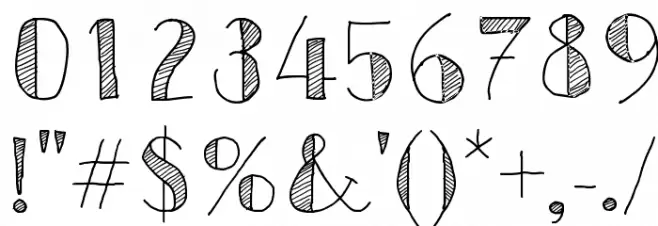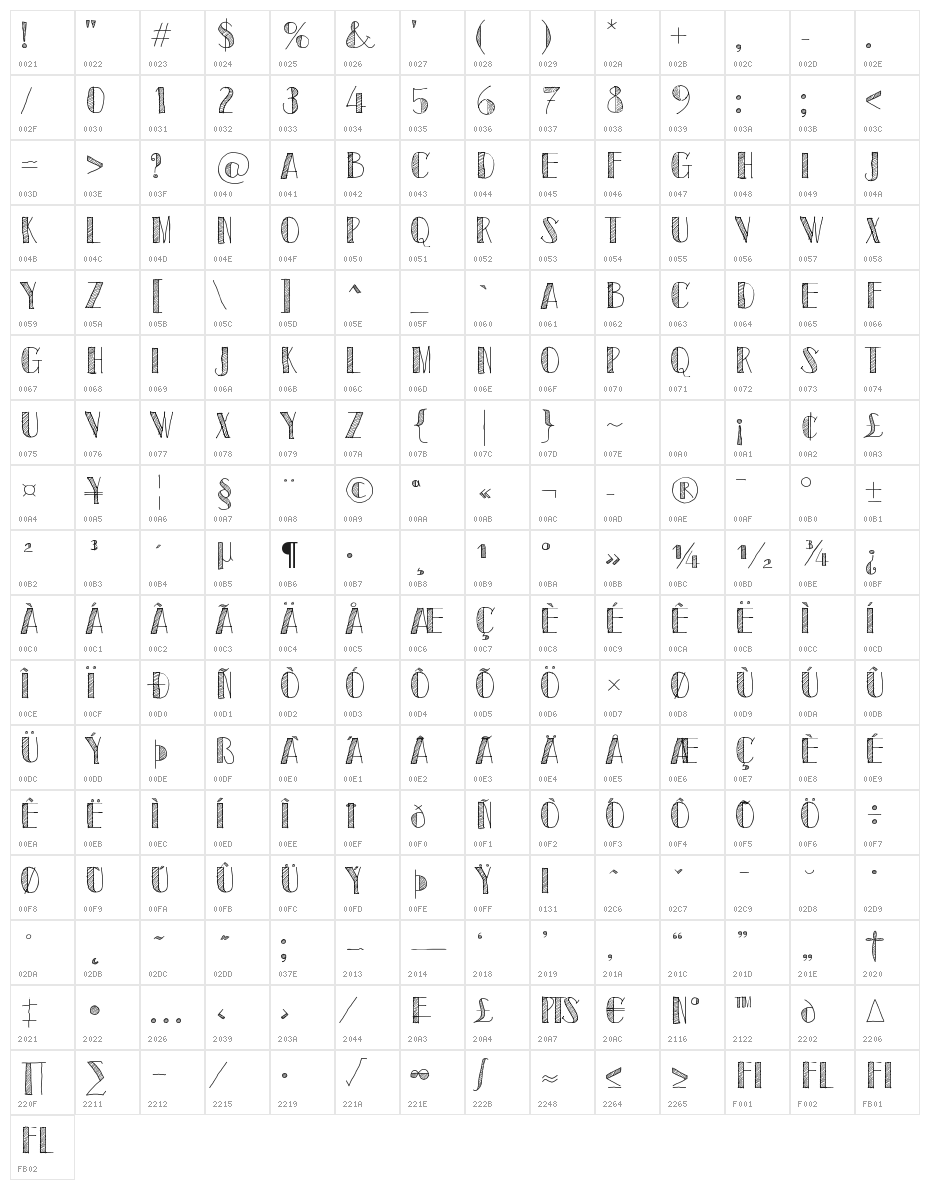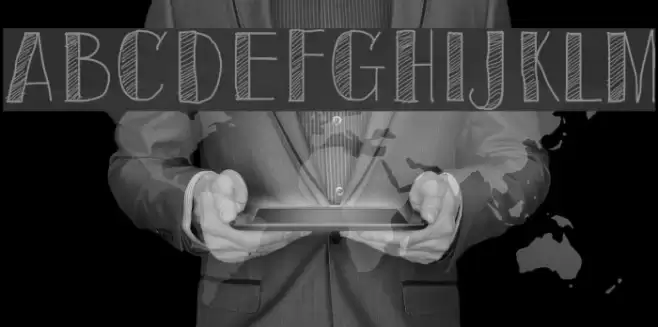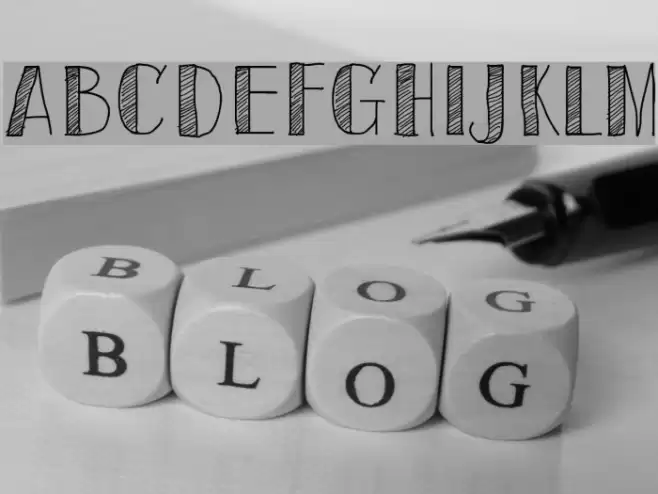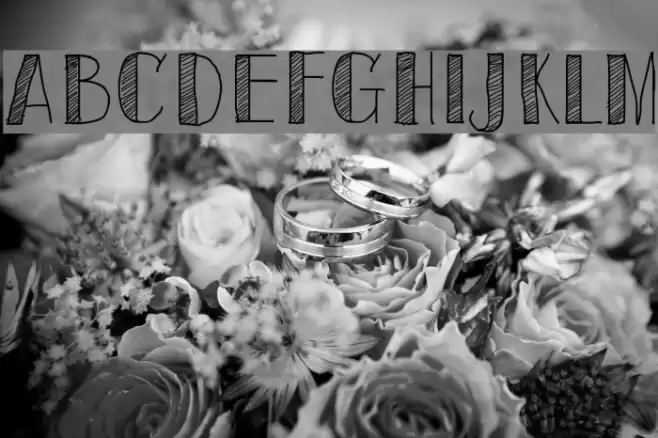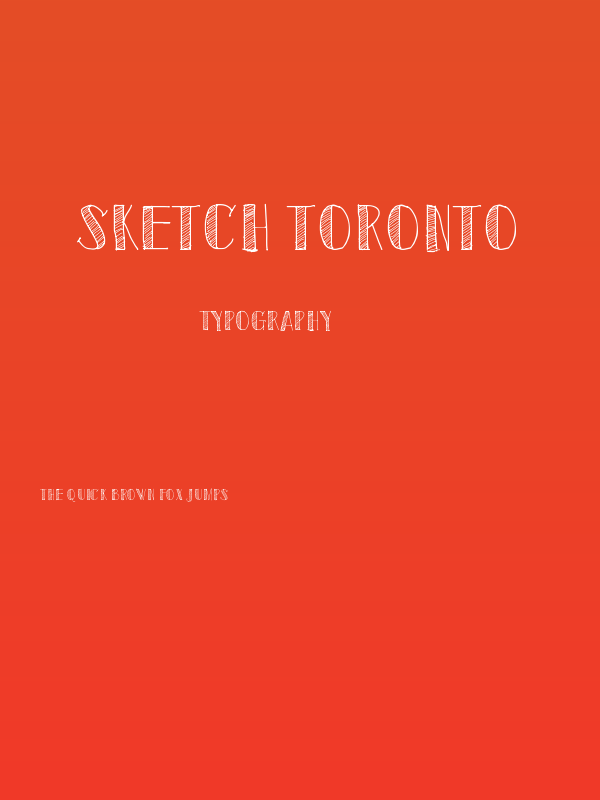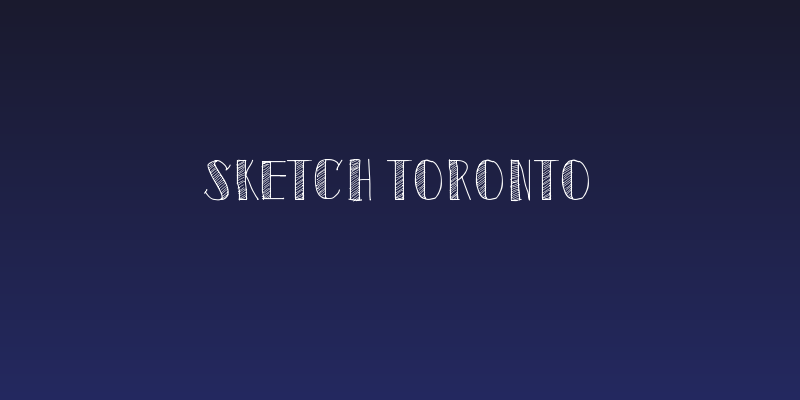
Sketch Toronto Font
Sketch Toronto Description
This font features a playful, hand-drawn style with a sketch-like appearance. Each character is outlined with a consistent stroke and filled with diagonal hatching, giving it a textured, artistic feel. The uppercase and lowercase letters maintain a uniform height, while the numbers and special characters follow the same design principles. The font's whimsical nature makes it ideal for creative projects, offering a unique blend of informality and charm. The characters are slightly condensed, with a moderate contrast between the thick and thin strokes, enhancing its visual appeal.
| Proposed Projects | Ideal for children's books, creative posters, greeting cards, and artistic branding. |